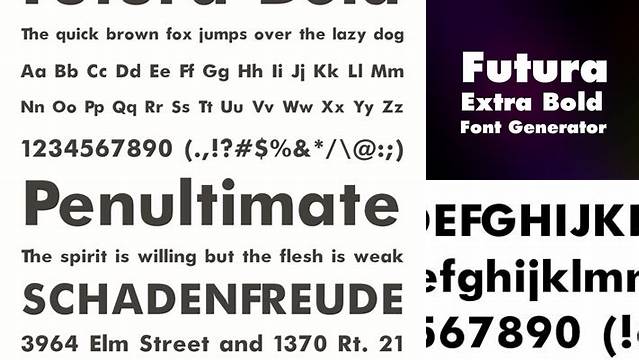
Free Futura Bold Font Generator: Your Guide To Timeless Typography
Are you looking for a Futura Bold font generator that's free? You've landed in the right spot! In today's digital world, typography plays a crucial role in how we communicate. The right font can make your message pop, convey the right mood, and leave a lasting impression. Among the plethora of fonts available, Futura Bold stands out as a timeless classic, known for its clean, geometric design and its authoritative presence. But what if you need to generate this font for your projects without breaking the bank? Well, my friends, that’s exactly what we’re diving into today. We will explore the ins and outs of Futura Bold, why it's so popular, and how you can get your hands on it for free using various font generators and online tools. So, buckle up and let’s get started on this typographic adventure! Futura Bold isn't just any font; it's a statement. Its geometric shapes and clean lines exude a sense of modernity and sophistication. This makes it a favorite for a wide range of applications, from branding and advertising to editorial design and web content. Imagine a sleek, minimalist logo – Futura Bold fits the bill perfectly. Or picture a bold headline that demands attention – again, Futura Bold steps up to the plate. Its versatility is one of the main reasons designers keep coming back to it. It’s like that trusty pair of jeans in your closet; you know it will always look good no matter how you style it. One of the reasons Futura Bold is so popular is its readability. The font's distinct letterforms make it easy to read at various sizes, whether it's a small block of text or a large headline. This is crucial for ensuring your message is effectively communicated. There's nothing worse than a beautiful font that nobody can decipher! The clarity of Futura Bold helps avoid this pitfall, making it a practical choice for both print and digital media. The font also boasts a rich history, having been designed in the 1920s by Paul Renner. Its design was inspired by the Bauhaus movement, which emphasized simplicity and functionality. This historical context adds to its appeal, giving it a sense of legacy and timelessness. When you use Futura Bold, you're not just choosing a font; you're tapping into a design tradition that spans almost a century. For all these reasons, having access to a reliable Futura Bold font generator can be a game-changer, especially if you're working on a budget. But before we delve into the tools and resources, let’s explore further why this font holds such a special place in the design world.
Why Futura Bold is a Timeless Choice
When it comes to selecting the perfect font, Futura Bold's timeless appeal makes it a standout choice. But what exactly is it about this font that has allowed it to remain so popular across different eras and design trends? The answer lies in its unique combination of geometric precision, readability, and historical significance. Futura Bold is more than just a font; it's a design philosophy in action. Its geometric shapes, inspired by the Bauhaus movement, provide a sense of order and structure. Each letter is carefully crafted, resulting in a typeface that feels both modern and timeless. This precise construction ensures that the font looks good in a variety of contexts, from print to digital, and at various sizes. Imagine using Futura Bold for a minimalist website design; the font's clean lines would complement the overall aesthetic perfectly. Or picture it in a bold advertising campaign, where its strong presence can capture attention instantly. The versatility of Futura Bold is truly remarkable, allowing it to adapt to different styles and applications with ease. The readability of Futura Bold is another key factor contributing to its enduring popularity. The font's clear and distinct letterforms make it easy on the eyes, even in large blocks of text. This is crucial for effective communication, especially in a world where attention spans are shorter than ever. Think about the importance of readability in website design, for instance. A website with a beautiful but illegible font is essentially useless. Futura Bold avoids this problem by prioritizing clarity and legibility, ensuring that your message gets across without any hassle. This focus on readability is one of the reasons why Futura Bold is often used in corporate communications, signage, and other applications where clarity is paramount. Beyond its aesthetic and functional qualities, Futura Bold also carries a certain historical weight. Designed in the 1920s by Paul Renner, it reflects the design principles of the Bauhaus movement, which emphasized simplicity, functionality, and geometric forms. This historical context adds depth and character to the font, making it more than just a typeface; it's a piece of design history. When you use Futura Bold, you're not just choosing a font; you're aligning yourself with a design legacy that has influenced countless designers and artists. The font’s historical significance gives it a certain gravitas, making it a reliable choice for projects that require a sense of authority and sophistication. For these reasons, Futura Bold has become a staple in the design world, used by everyone from Fortune 500 companies to independent artists. Its versatility, readability, and historical significance make it a timeless choice that continues to resonate with designers and audiences alike. Now that we understand why Futura Bold is so special, let’s explore how you can generate it for free.
Finding Free Futura Bold Font Generators
Now that we've established the awesomeness of Futura Bold, let's dive into the juicy part: finding free Futura Bold font generators. Guys, there are tons of options out there, but not all are created equal. You want to make sure you're using a reliable tool that gives you the results you need without any hidden costs or sketchy downloads. So, how do you navigate this digital jungle and find the best free Futura Bold font generators? First off, it’s essential to understand what a font generator actually does. In most cases, these tools don't create the Futura Bold font from scratch. Instead, they allow you to input text and render it in a style that closely resembles Futura Bold. This can be incredibly useful for creating mockups, social media graphics, or any design project where you want to capture the essence of Futura Bold without necessarily needing the full font file. One of the most straightforward ways to generate text in a Futura Bold-like style is by using online font generators. These websites typically offer a range of fonts that mimic popular typefaces, including Futura Bold. You simply type in your text, choose the font style, and the generator creates an image or vector graphic of your text in that style. This is perfect for quick projects where you need a visual representation of your text in Futura Bold without the commitment of downloading and installing a font file. For example, imagine you’re creating a presentation and you want a title slide that screams sophistication. Using an online font generator, you can quickly create a title in a Futura Bold-esque style, download the image, and drop it into your presentation. Easy peasy! Another great option is to explore websites that offer free font alternatives. While you might not find the exact Futura Bold font for free (as it's a commercially licensed typeface), you can often find fonts that are very similar in style and appearance. These alternatives can be a fantastic way to achieve the Futura Bold look without violating any copyright restrictions. Websites like Google Fonts and Font Squirrel are treasure troves of free fonts, many of which share the geometric and modern characteristics of Futura Bold. When searching for alternatives, focus on fonts that have a similar weight, letterform, and overall feel to Futura Bold. Fonts like Montserrat, Open Sans, and Lato are often recommended as solid substitutes. These fonts offer a clean, geometric aesthetic that can give your designs a similar vibe to Futura Bold, making them excellent choices for a variety of projects. In addition to online tools and font libraries, some design software programs also include font generators or font styling options that can help you achieve a Futura Bold-like effect. Programs like Adobe Photoshop and Illustrator, for example, allow you to manipulate fonts in various ways, including adjusting the weight, spacing, and style to mimic the look of Futura Bold. This can be a more advanced approach, but it gives you greater control over the final result. Remember, the key is to explore different options and find the tools that work best for your specific needs and skill level. Whether you opt for a simple online font generator, a free font alternative, or advanced design software, there are plenty of ways to capture the essence of Futura Bold without spending a dime. Now, let’s take a closer look at some specific tools and resources that you can use to generate Futura Bold for free.
Top Free Futura Bold Font Generator Tools and Resources
Alright, let's get down to brass tacks and talk about the top free Futura Bold font generator tools and resources you can use right now. We've already touched on the general approaches, but let's zoom in on some specific platforms and techniques that will help you nail that Futura Bold aesthetic without emptying your wallet. So, grab your design hats, and let's get started! One of the first places you should check out is online font generators. These are web-based tools that allow you to type in text and render it in a variety of font styles, many of which closely resemble Futura Bold. A quick Google search for "free font generator" will turn up a plethora of options, but let's highlight a couple of standouts. Websites like Fontstruct and Cool Text are popular choices for their ease of use and wide range of customization options. With Fontstruct, you can even create your own fonts from scratch, giving you ultimate control over the design. Cool Text is more of a quick-and-dirty solution, perfect for generating stylish text for social media or blog headers. When using these tools, remember that they are generating images or graphics of the text, not the actual font file. This means you can't install the generated text as a font on your computer, but you can easily use the images in your design projects. Another fantastic resource is Google Fonts. While you won't find Futura Bold itself on Google Fonts (it's a commercially licensed font), you will find a treasure trove of free and open-source fonts that capture a similar vibe. Fonts like Montserrat, Lato, and Open Sans are excellent alternatives that share Futura Bold's geometric and modern aesthetic. These fonts are not only free but also incredibly versatile, making them a great addition to any designer's toolkit. Using these alternatives can give you a very similar look and feel to Futura Bold without the licensing fees. This is especially useful for web design projects, as Google Fonts are designed to load quickly and seamlessly on websites. Simply import the font into your website's CSS, and you're good to go! If you're working on more complex design projects, you might want to explore design software that offers font manipulation options. Adobe Photoshop and Illustrator, for example, allow you to adjust font weights, spacing, and other attributes to mimic the look of Futura Bold. This can be a more advanced approach, but it gives you greater control over the final result. You can start with a font like Montserrat and then tweak its properties to closely match the appearance of Futura Bold. This method requires a bit more design savvy, but it can be incredibly rewarding if you're aiming for a specific look. There are also a variety of free design tools available online that offer similar font manipulation capabilities. Programs like Canva and GIMP (a free and open-source alternative to Photoshop) can be excellent resources for generating Futura Bold-like text. These tools provide a user-friendly interface and a range of font options, making them accessible to designers of all skill levels. Lastly, don't forget the power of community. Online design forums and communities are great places to find tips, tricks, and resources for generating Futura Bold. You can often find other designers who have experimented with different techniques and are willing to share their knowledge. So, whether you're using online font generators, free font alternatives, or design software, there are plenty of ways to achieve the Futura Bold look without breaking the bank. The key is to explore your options, experiment with different tools, and find the approach that works best for you. Now that we've covered the top resources, let's dive into some tips and tricks for maximizing your free Futura Bold font generation efforts.
Tips and Tricks for Maximizing Free Futura Bold Font Generation
So, you've got your free Futura Bold font generator tools lined up – awesome! But how do you make sure you're really squeezing every last drop of potential out of them? Let's talk tips and tricks for maximizing your free Futura Bold font generation. These little nuggets of wisdom can make a huge difference in the final look and feel of your projects. First off, let's address the elephant in the room: finding a true free Futura Bold font is tricky because it's a commercially licensed typeface. What we're really aiming for here is to capture the essence of Futura Bold using free tools and alternatives. Understanding this distinction is crucial because it shapes how you approach your design process. One of the best tricks is to really get to know Futura Bold's key characteristics. What makes it tick? What gives it that distinctive geometric vibe? The answer lies in its clean lines, perfect circles, and sharp angles. Knowing these elements allows you to better evaluate alternative fonts and make informed decisions about which ones to use. For instance, when you're browsing Google Fonts, don't just look for fonts that are labeled as "geometric sans-serif." Instead, compare them closely to Futura Bold. Pay attention to the shape of the letters, the weight of the strokes, and the overall balance of the typeface. Fonts like Montserrat and Lato often come close because they share these key characteristics. Another pro tip is to experiment with font weights and styles. Futura Bold is just one variant in the Futura family, which includes light, regular, and condensed versions. When you're using a font alternative, try playing around with the weight to get closer to the specific look you're aiming for. In design software like Photoshop or Illustrator, you can often adjust the font weight, tracking, and kerning to fine-tune the appearance. For example, you might start with Montserrat Regular and then increase the weight to mimic the boldness of Futura Bold. Similarly, adjusting the letter spacing (tracking) can help you achieve a more open and airy feel, which is another hallmark of Futura Bold. Don't underestimate the power of context. The way you use a font can have a huge impact on how it's perceived. Even if you're using a font alternative, you can still capture the Futura Bold vibe by using it in a similar context. Think about the types of projects where Futura Bold is commonly used: logos, headlines, posters, and corporate branding. By using your font alternative in these same types of applications, you're leveraging the visual associations that people have with Futura Bold. For example, if you're designing a logo, try using your font alternative in a clean, minimalist style with plenty of white space. This can evoke the same sense of sophistication and modernity that Futura Bold is known for. Finally, remember that design is an iterative process. Don't be afraid to experiment, make mistakes, and learn from them. Try out different font combinations, play around with colors and layouts, and get feedback from others. The more you practice, the better you'll become at capturing the essence of Futura Bold using free tools and alternatives. So, there you have it – a treasure trove of tips and tricks for maximizing your free Futura Bold font generation efforts. Now it's time to put these ideas into action and start creating some stunning designs! Let's wrap things up by summarizing everything we've covered and highlighting the key takeaways.
Conclusion: Embracing the Futura Bold Aesthetic for Free
Alright, guys, we've reached the finish line! Let's recap our journey through the world of free Futura Bold font generation and highlight the key takeaways. We've covered a lot of ground, from understanding why Futura Bold is such a timeless choice to exploring the best tools and tricks for capturing its essence without spending a dime. So, let’s bring it all together and make sure you’re fully equipped to rock that Futura Bold aesthetic in your next design project. First and foremost, remember why Futura Bold is so beloved in the design world. Its geometric precision, readability, and historical significance make it a font that stands the test of time. Whether you're designing a logo, creating a website, or crafting a marketing campaign, Futura Bold’s clean lines and modern feel can elevate your work to the next level. But, as we've discussed, getting your hands on the actual Futura Bold font for free can be tricky due to its commercial licensing. That’s where the magic of free font generators and alternatives comes into play. We've explored a variety of tools and resources, from online font generators that let you create text in a Futura Bold-like style to free font libraries like Google Fonts that offer excellent alternatives. Remember, the key is to focus on capturing the essence of Futura Bold, rather than trying to find an exact replica. Fonts like Montserrat, Lato, and Open Sans are fantastic substitutes that share Futura Bold's geometric and modern characteristics. By using these alternatives, you can achieve a similar look and feel without violating any copyright restrictions. We also delved into the importance of knowing Futura Bold's key characteristics. Understanding its clean lines, perfect circles, and sharp angles allows you to better evaluate alternative fonts and make informed decisions about which ones to use. Don't just settle for a font that's labeled as "geometric sans-serif"; take the time to compare it closely to Futura Bold and ensure it captures the same visual vibe. And let's not forget the power of font weights and styles. Experimenting with different weights can help you get closer to the specific look you're aiming for. In design software like Photoshop or Illustrator, you can fine-tune the appearance by adjusting the weight, tracking, and kerning. This level of control allows you to truly customize your font and achieve a result that’s both visually appealing and uniquely your own. Context is another crucial factor. The way you use a font can have a huge impact on how it's perceived. By using your font alternative in similar contexts to Futura Bold – such as logos, headlines, posters, and corporate branding – you're leveraging the visual associations that people have with the font. This can help you create a design that feels sophisticated and modern, even if you're not using the actual Futura Bold typeface. Finally, remember that design is a journey, not a destination. Don't be afraid to experiment, make mistakes, and learn from them. Try out different font combinations, play around with colors and layouts, and get feedback from others. The more you practice, the better you'll become at capturing the essence of Futura Bold and creating stunning designs that stand out from the crowd. So, go forth and embrace the Futura Bold aesthetic for free! With the tools, tips, and tricks we've covered in this article, you're well-equipped to create designs that are both visually striking and budget-friendly. Happy designing, guys!